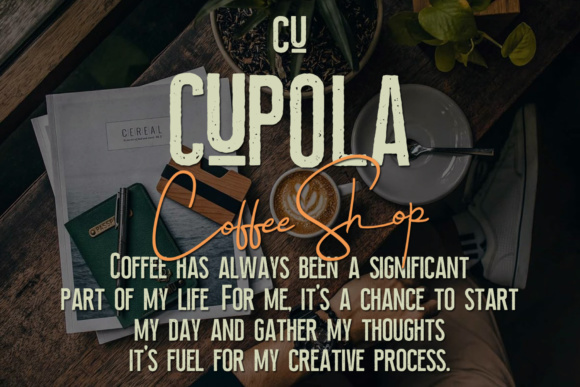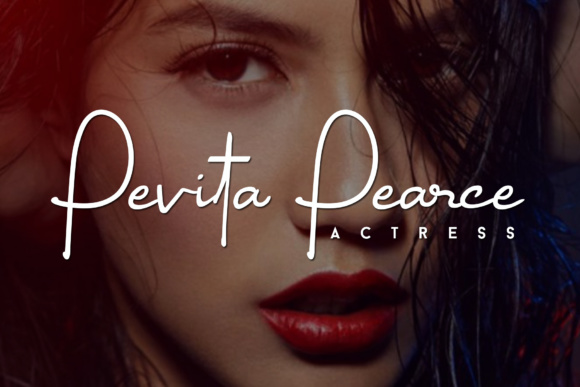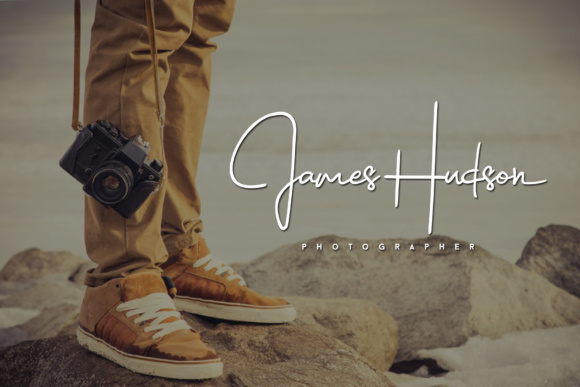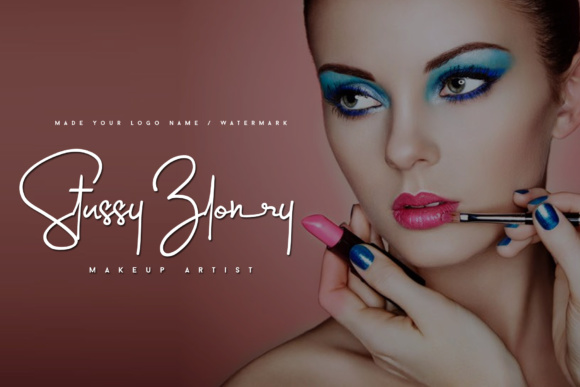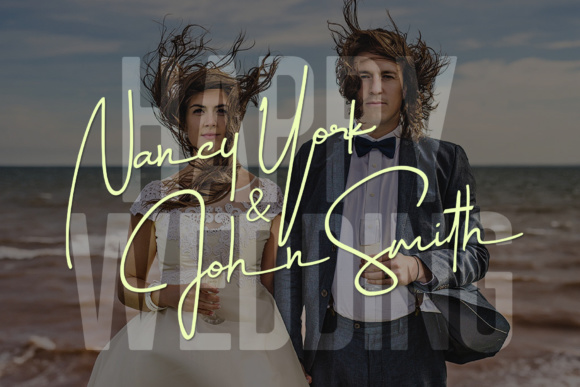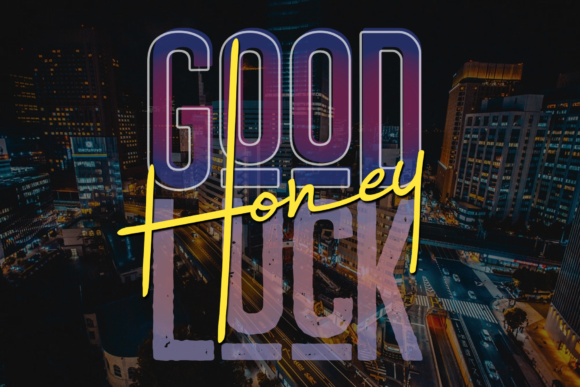
Unleash Your Creativity with the Bronx Simpul Duo Font
Have you ever stared at a blank canvas, trying to conjure up the perfect font to match your design vision? It’s a moment we’ve all been there – the blank page staring back, taunting us to bring our creative ideas to life. But what if you had the perfect tools at your fingertips? Introducing the Bronx Simpul Duo Font, a stylish pair of script and serif fonts that will breathe new life into your designs.
| 📌 Product Name | Bronx Simpul Duo Font |
| 👤 Author | I Do Not Sleep |
This duo font is more than just a design tool – it’s a game-changer for designers. With its clean, outline and trace style serif font, expressive script companion, and beautiful typographic harmony, the Bronx Simpul Duo Font is the ultimate companion for a variety of design projects. Whether you’re working on a logo, branding, or wedding design, this font duo is sure to impress.
Bronx Simpul Duo Font Key Features
- Font Family: Bronx Simpul Duo, a unique script font designed for creative and artistic purposes.
- Unique Characteristics: Features a distinctive, hand-drawn feel with intricate details and flourishes, making it ideal for creative projects such as invitations, posters, and social media graphics.
Design Review: Bronx Simpul Duo Font
The Bronx Simpul Duo Font is a unique and eye-catching font that can elevate the visual appeal of any design. Here are some of its strengths:
- ✨ Elegant and stylish design: The font features intricate details and patterns that add a touch of sophistication to any text.
- ✨ Versatile: The font can be used for a wide range of applications, from headlines and titles to body text and even logos.
- ✨ Customizable: The font’s designer has provided a variety of weights and styles, making it easy to find the perfect fit for your design.
- ⚠️ Limited legibility: The font’s intricate details can make it difficult to read at smaller font sizes or in certain contexts.
- ⚠️ Limited language support: The font may not be suitable for languages that require a wide range of characters or complex scripts.
Overall, the Bronx Simpul Duo Font is a great choice for designers who want to add a touch of elegance and sophistication to their designs. While it may have some limitations, its unique design and versatility make it a valuable addition to any design toolbox.
Use the Bronx Simpul Duo font for creative and artistic projects, such as posters, flyers, and social media graphics.
Experiment with different font sizes and combinations to add visual interest to your designs.
Consider pairing the Bronx Simpul Duo font with other creative fonts to create a unique and eye-catching design.